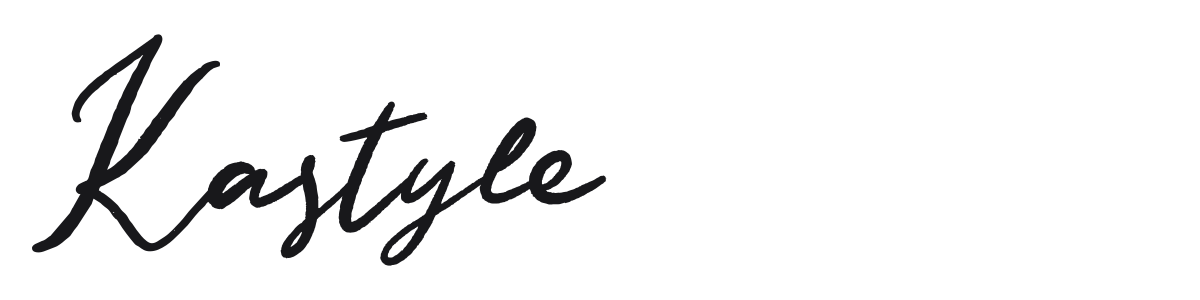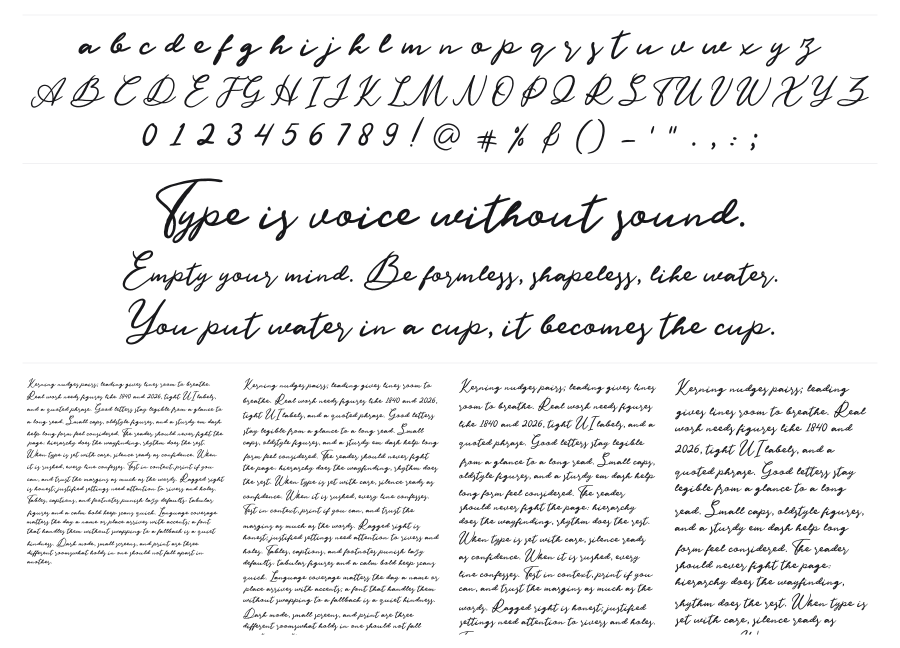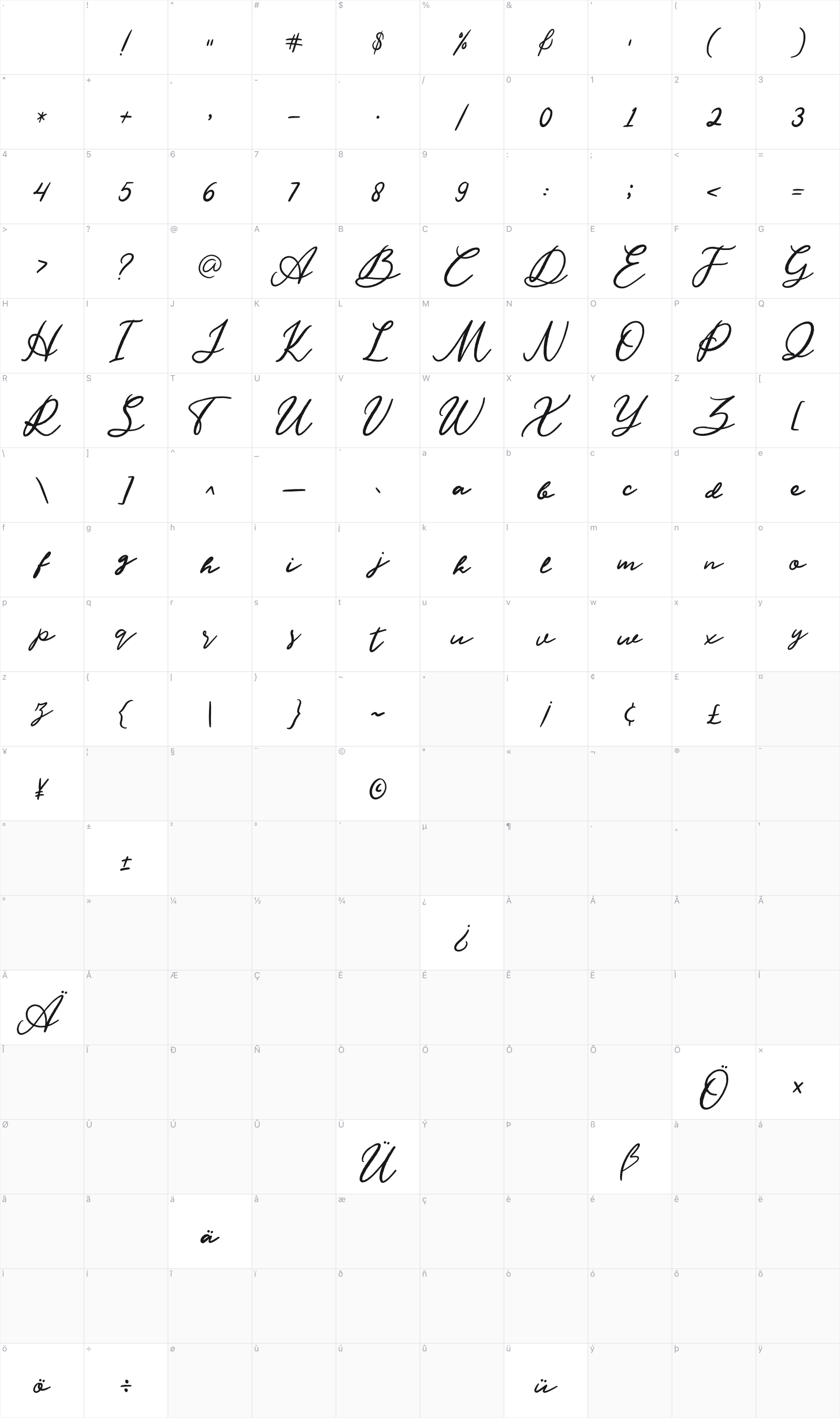
Kastyle
Kastyle is a casual brush script with the ink-on-paper energy of confident hand lettering. High stroke contrast between thick downstrokes and delicate hairlines gives it a natural, lively feel, while the looping connections keep it flowing and cohesive. Strong at large sizes for logos, packaging, and editorial headlines.